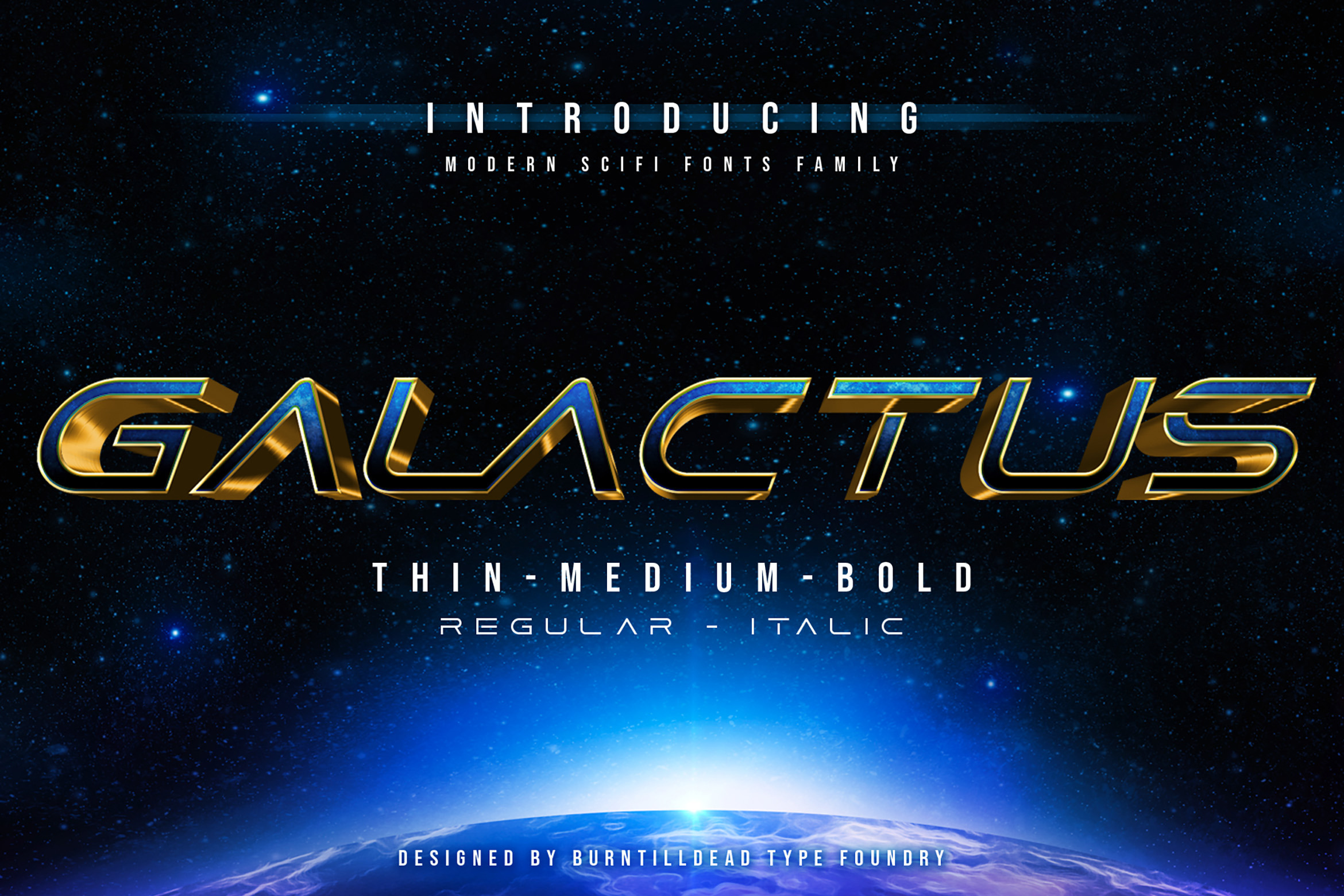
Galactus - SCIFI Font Family
Say Hi: Introducing our new font family called Galactus, a modern display font with wide & clean look. Dedicated to SCIFI logo style. Really great for e-sports logo, aerospace games, jersey designs, automotive logos, etc .
Various Weight: comes in thin, medium and bold weights. Italic version for each weight is also provided.
Features: It also supported with opentype features - ligatures (Liga), Multilanguages & PUA encoded.